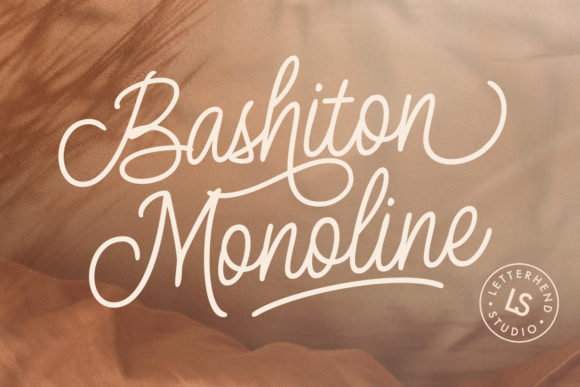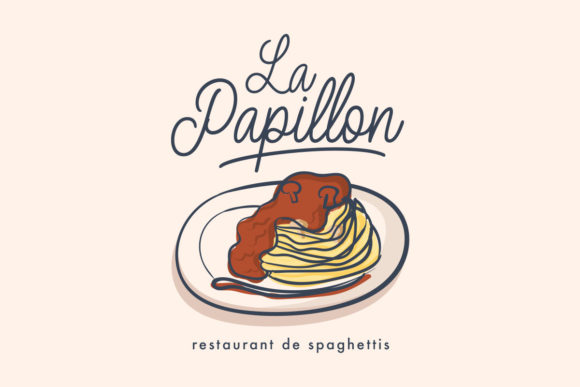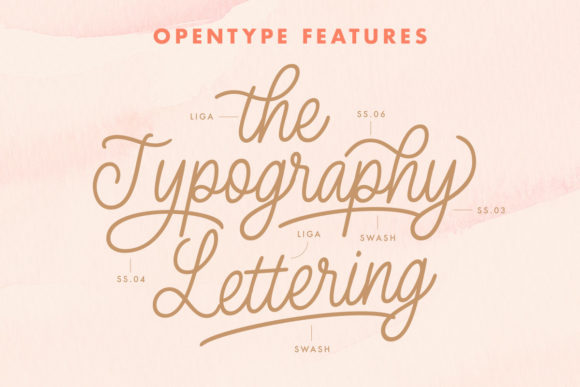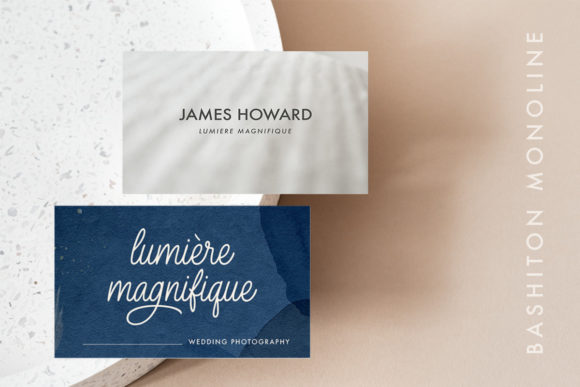
Bashiton Monoline Font
Bashiton Monoline is a distinct, vintage styled graceful script font. Fall for its ravishing style and use it to create gorgeous designs.